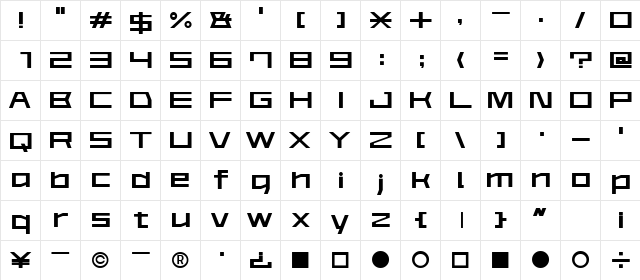
AstraAfsb07MediumT Regular
Design Context for AstraAfsb07MediumT Typeface
AstraAfsb07MediumT takes a measured approach to typography — its balanced proportions and neutral character make it a reliable workhorse for both digital and print work.